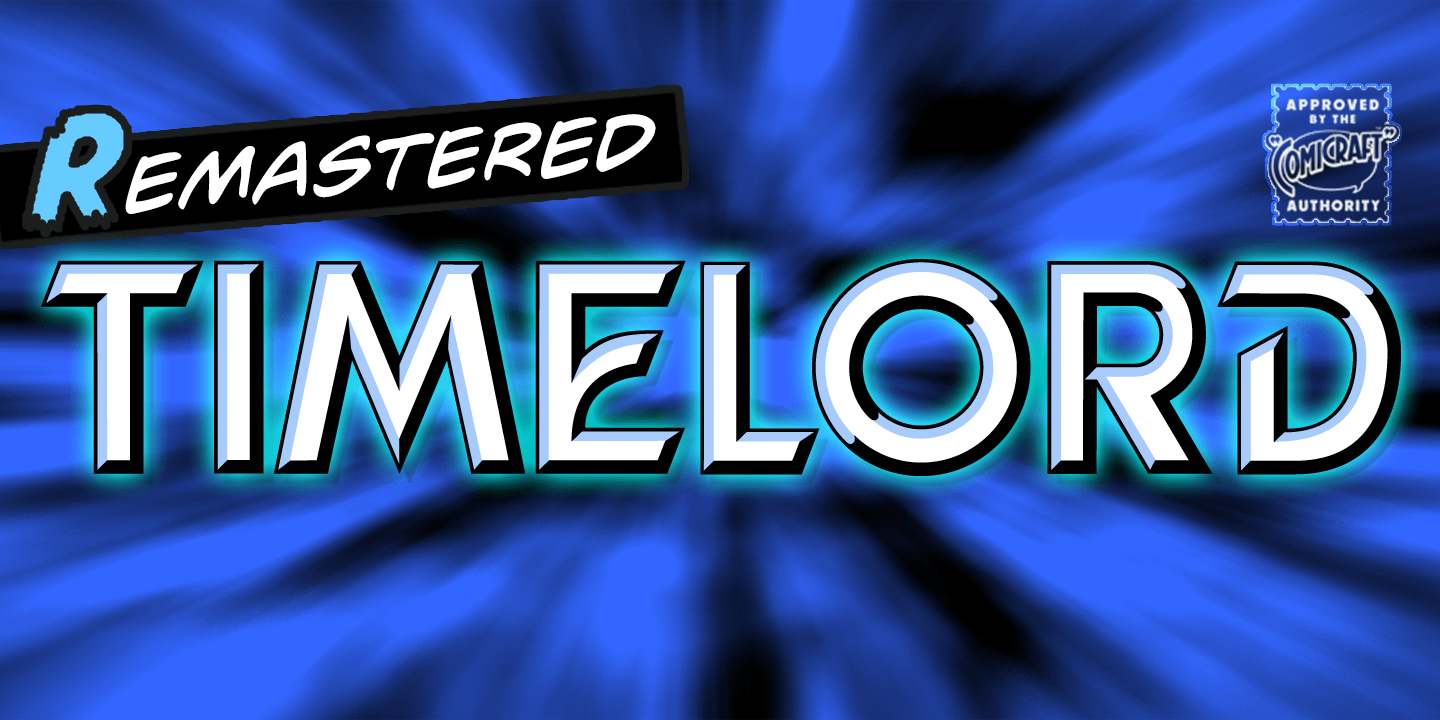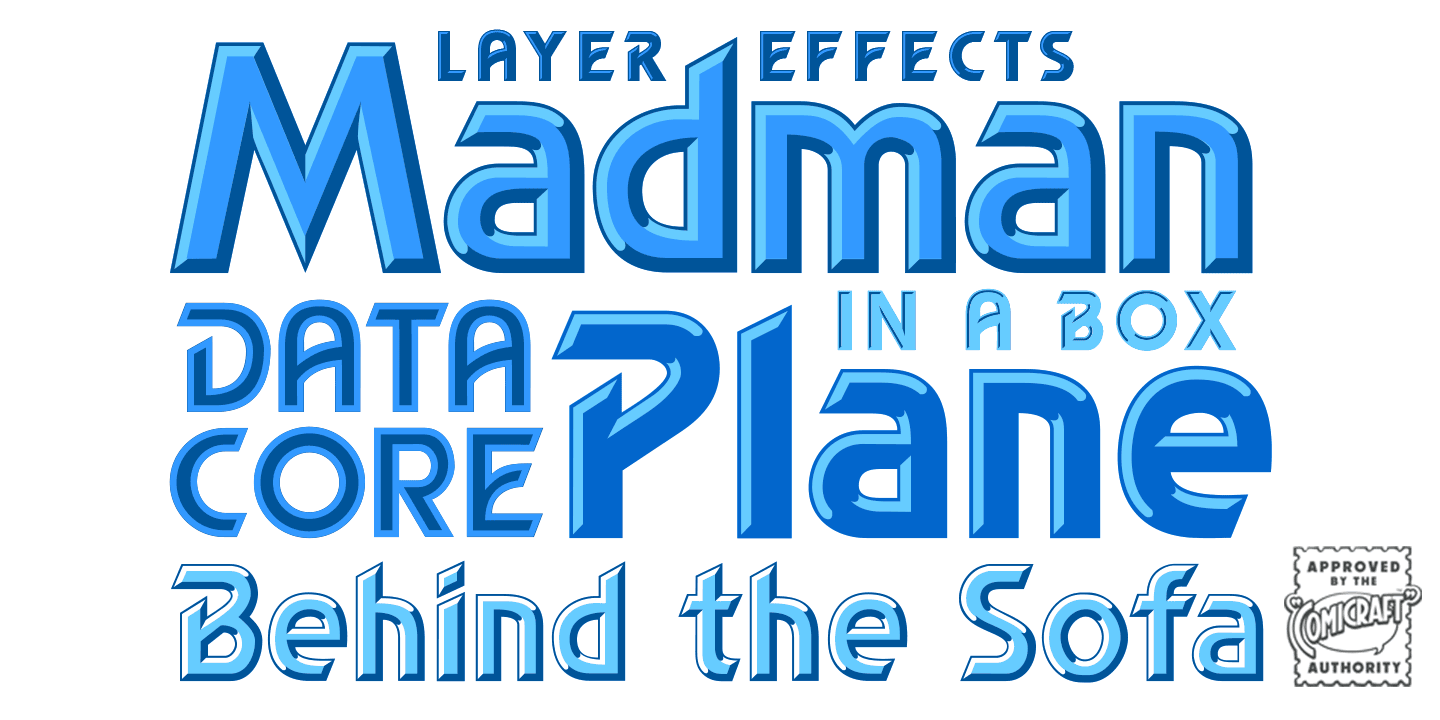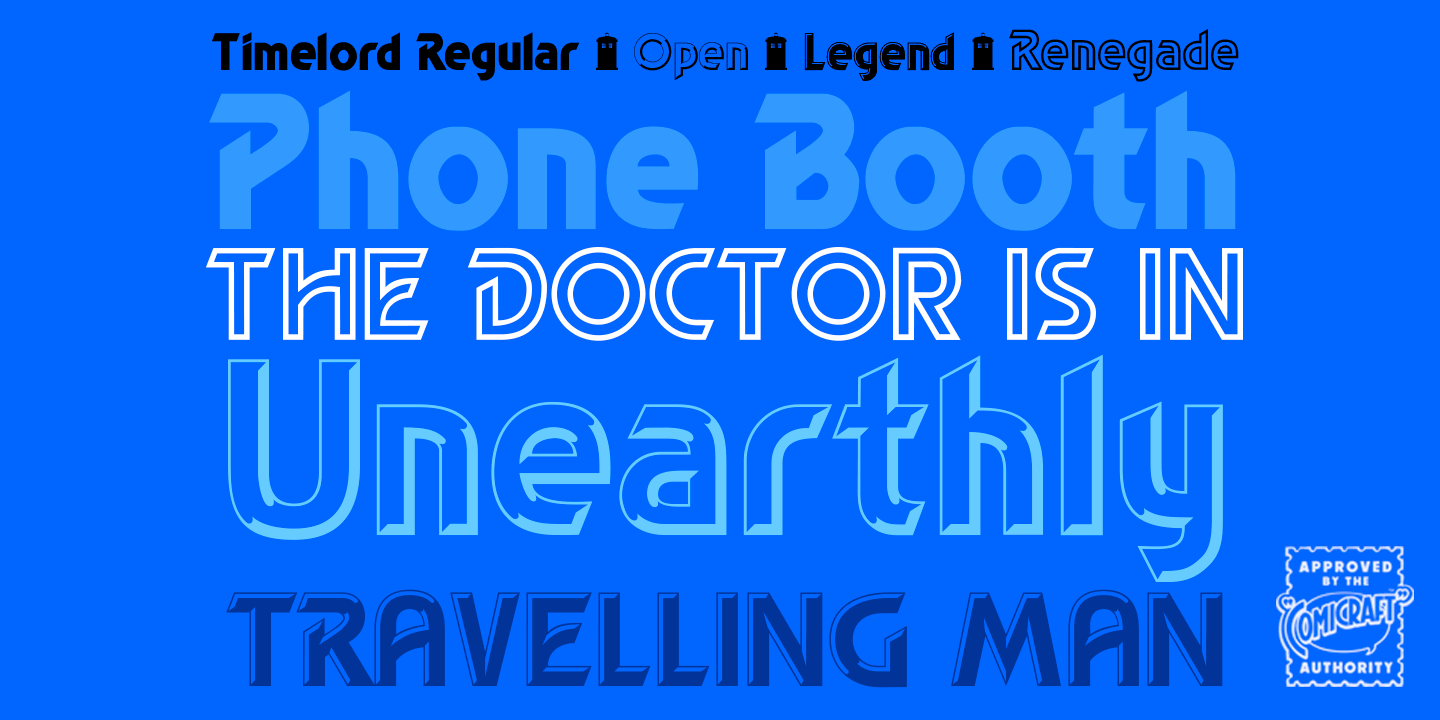
Timelord
Font Family by Comicraft Fonts
VWORP! VWORP! This font will travel through the four dimensions of time and space to materialise on your hard drive. TIMELORD was created for Telos publishing's line of DOCTOR WHO novellas.